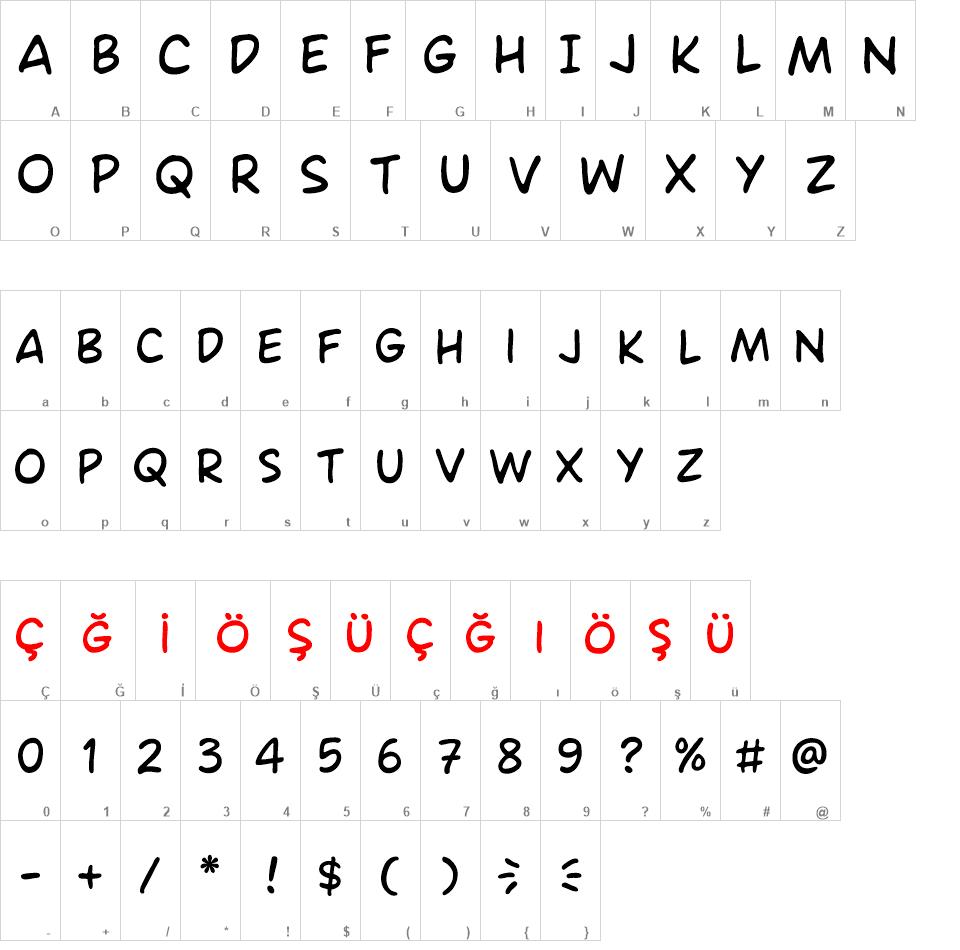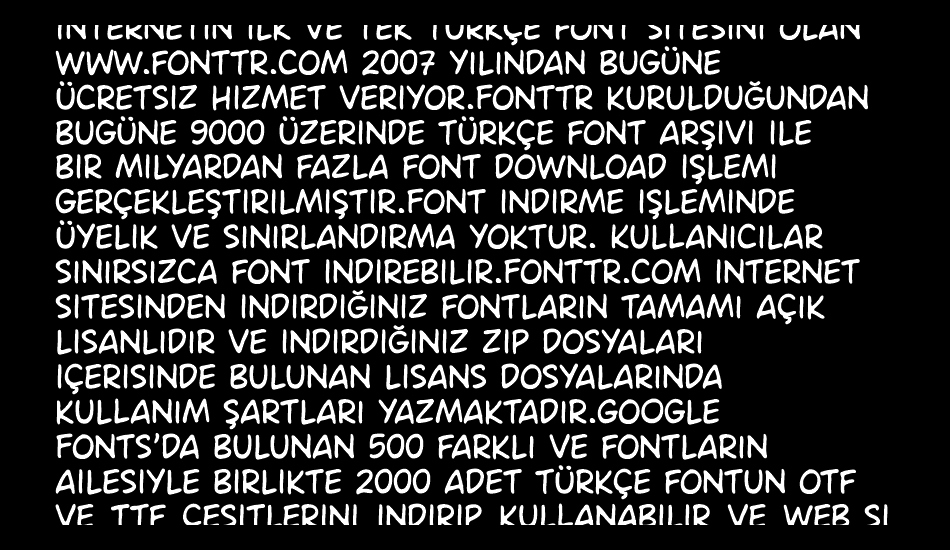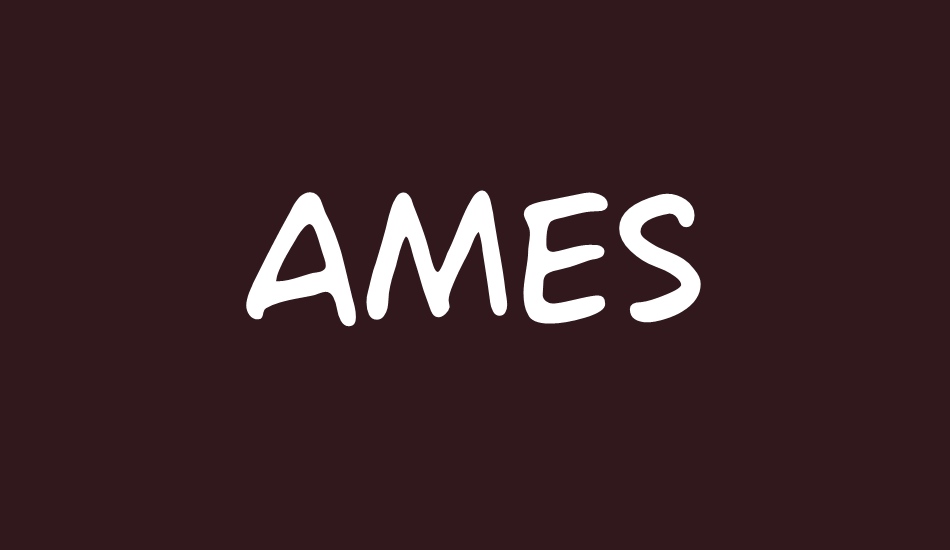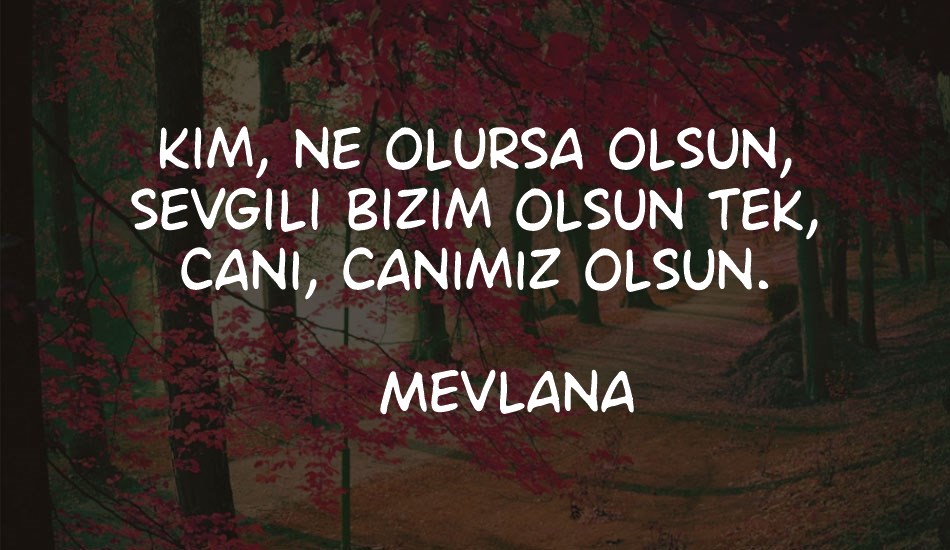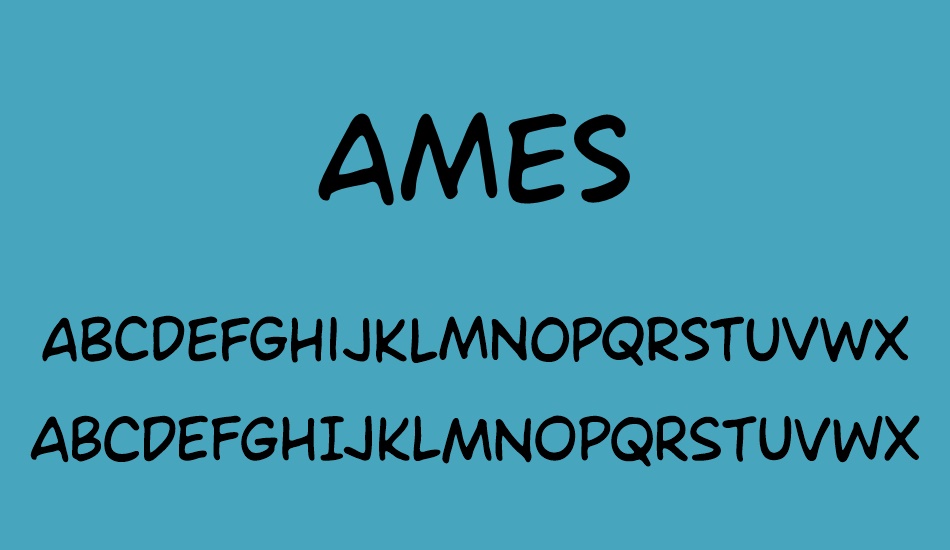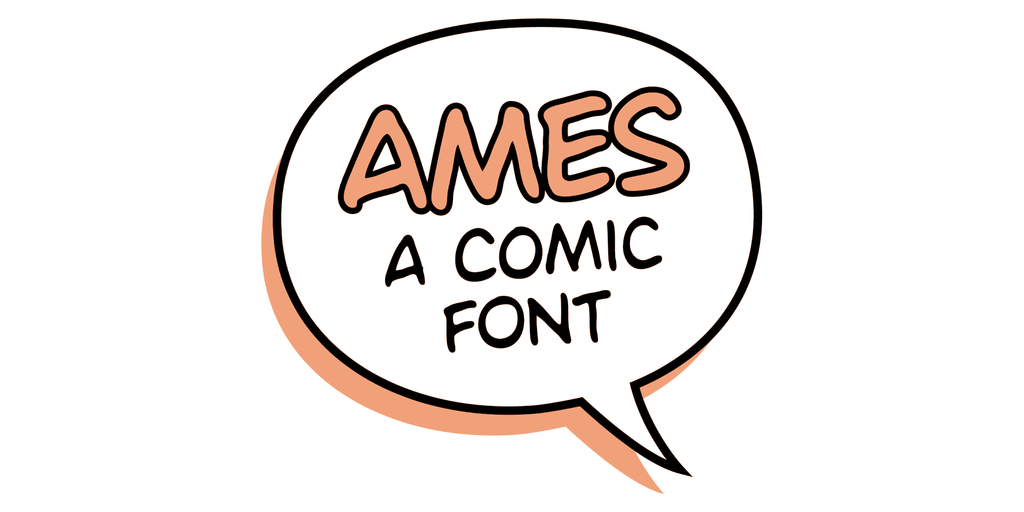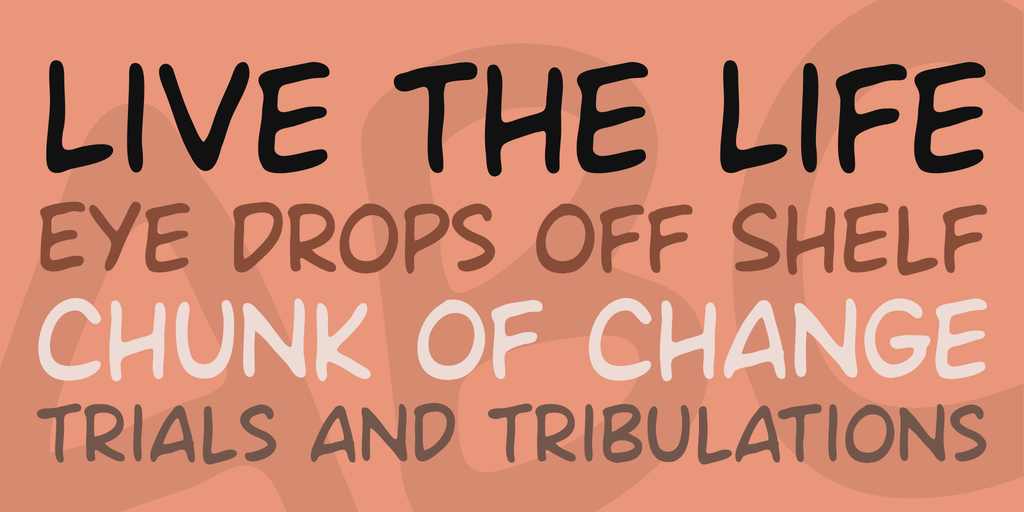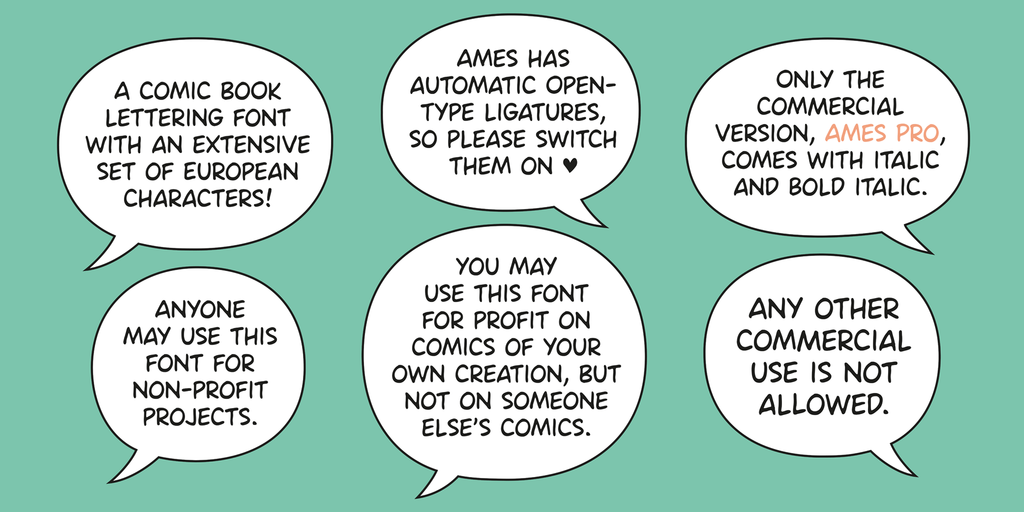
Ames font
Ames
Ames is a freeware comic book lettering font for independent comic creation and non-profit use only. See more information here: http://purastik.net/ames/e.html